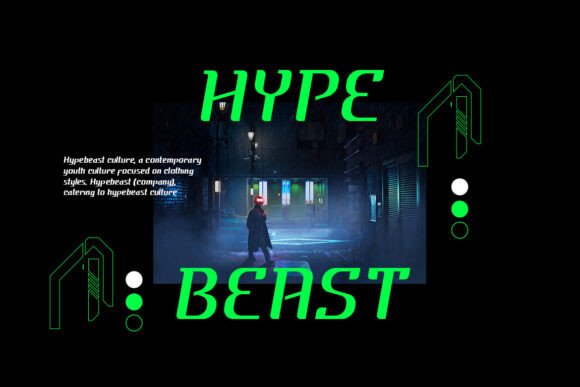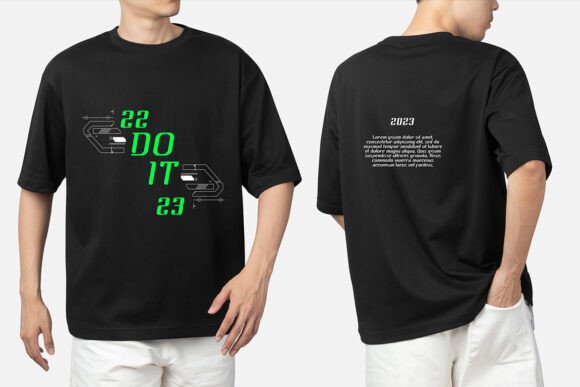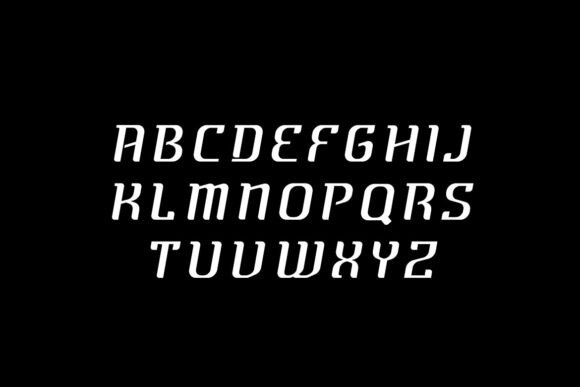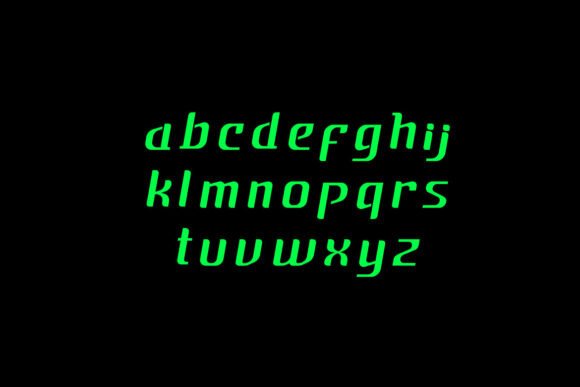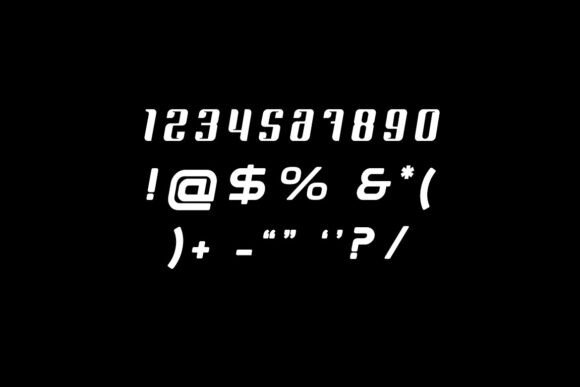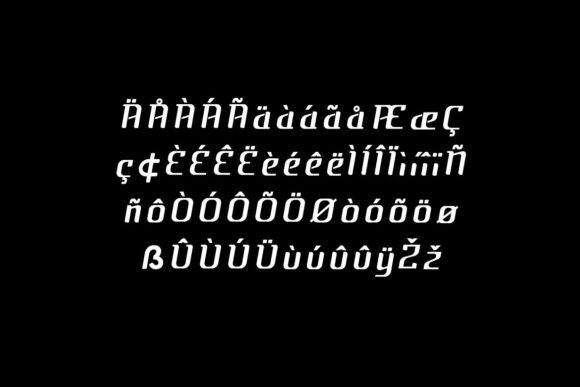
Introduction to Cyber House Font
Have you ever found yourself staring at a blank canvas, waiting for the perfect font to bring your creative vision to life? For designers, this moment is all too familiar. The search for the ideal typography can be a daunting task, but what if we told you that there’s a font that can elevate your design game and make your work stand out from the crowd?
Enter the Cyber House Font, a modern display font that exudes elegance, sophistication, and style. With its high-quality design, this font is perfect for a wide range of creative projects, from signature and stationery to logo design and magazine covers. Whether you’re working on a fashion-related branding or editorial design, the Cyber House Font’s versatility and timeless appeal make it a valuable resource for designers.
Key Features of Cyber House Font
- High-quality digital font with a transparent background, ideal for creative projects and design resources.
- Features a unique, futuristic design that’s perfect for sci-fi and tech-related themes, making it a great resource for designers.
Honest Review: Cyber House Font
I recently had the chance to work with the Cyber House Font, and I must say it’s a unique addition to any design project. The font’s futuristic aesthetic is perfect for creative projects that require a touch of edginess.
Here are some things that work well with the Cyber House Font:
- Its high-quality design makes it a great resource for any project.
- The transparent background allows for easy layering and customization.
- ⚠️ The font may not be suitable for projects that require a more classic or traditional look.
- ⚠️ Some users may find the font’s bold lines and angles overwhelming.
Overall, I think the Cyber House Font is a solid addition to any designer’s toolkit. While it may not be for every project, it’s a great resource for designers looking to add some futuristic flair to their work.
Some tips for getting the most out of the Cyber House Font include using it in combination with other high-quality design elements, experimenting with different font sizes and colors, and taking advantage of its transparent background to create visually appealing graphics.
The Cyber House Font is commonly used in creative projects such as graphic design, digital art, and typography. It’s also great for use in presentations, documents, and other visual materials where a unique and creative font is desired.
Is the Cyber House Font suitable for print or digital use?
The Cyber House Font is designed to be used in both print and digital applications. Its high-quality design and transparent background make it perfect for use on digital screens, while its crisp lines and clear typography make it suitable for print projects as well.